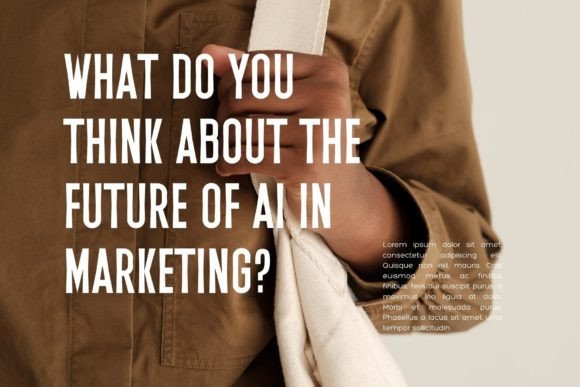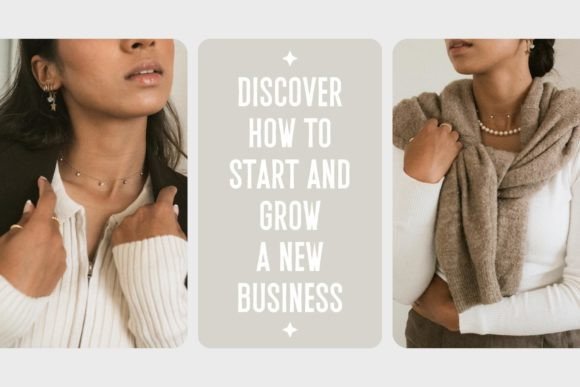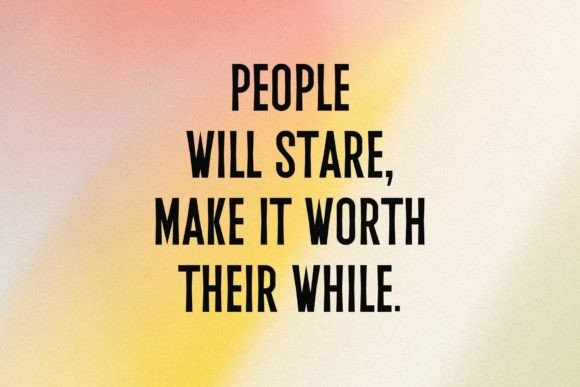
Introduction to Monkeys Font
Monkeys is a clean display font that brings a sense of elegance and sophistication.
Its design features crisp and well-defined letterforms, with straight lines that give it a sleek and modern look The simplicity of the display font makes it highly versatile and suitable for a wide range of design applications.
Key Features of Monkeys Font
Why Choose Monkeys Font?
Monkeys Font offers exceptional quality and versatility, making it a valuable addition to your design toolkit. Whether you’re creating for personal projects or commercial use, Monkeys Font delivers professional results.